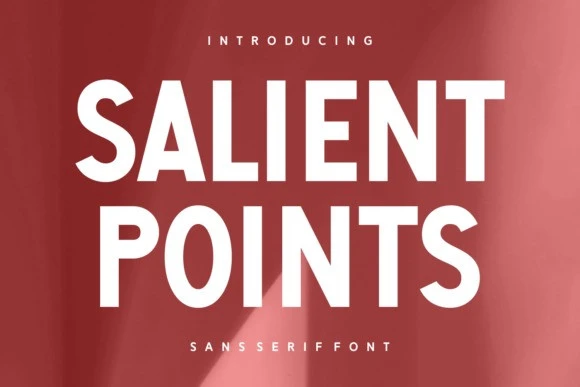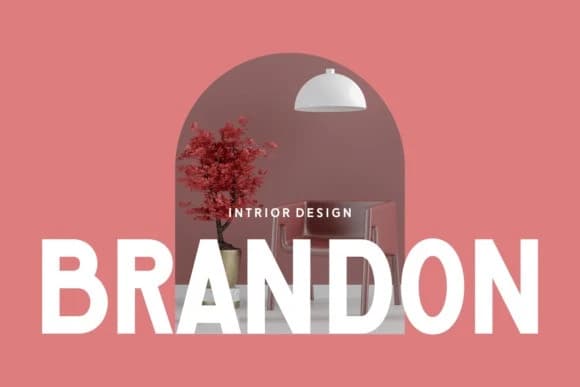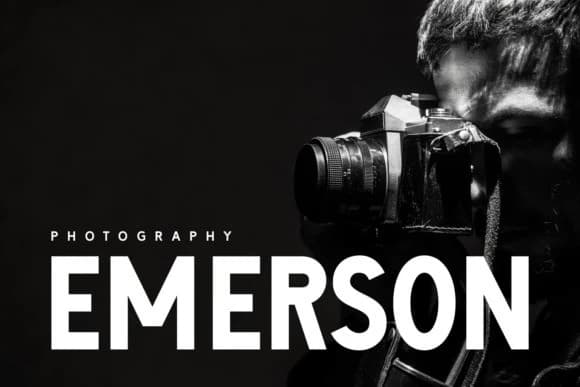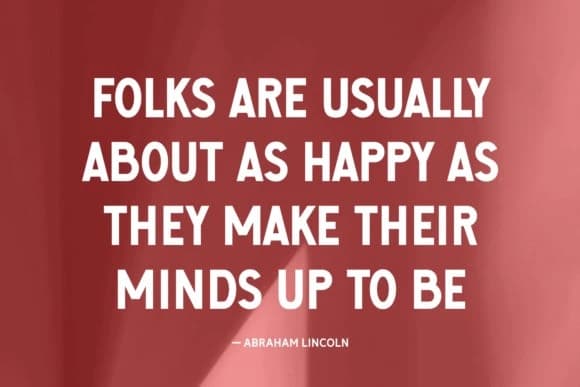
Salient Points Font
Salient Points Font, a fusion of elegance and modernity. Gracefully designed as a Sans Serif font with a sleek touch, it is imminently adaptable, perfect for showcasing your artistic flair in photography, accents, and even apparel.